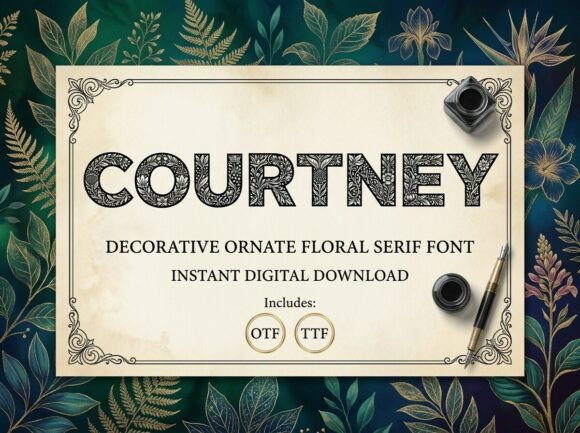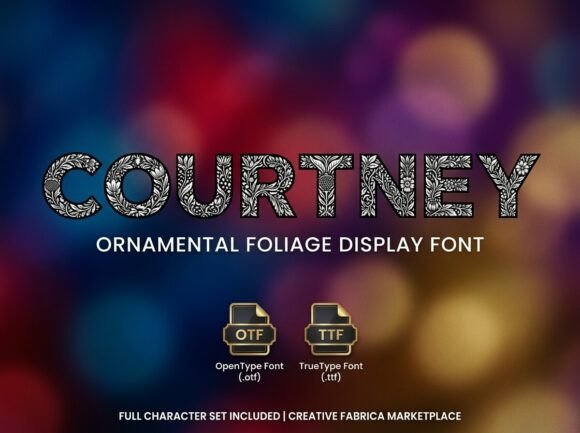
Introducing Courtney: The Premium Floral Engraved Font for Unparalleled Artistry
In the world of typography, few fonts have managed to capture the essence of classic woodcut craftsmanship as effortlessly as Courtney. This premium floral engraved font is a masterpiece of intricate design, boasting a sturdy, bold serif skeleton entirely inhabited by delicate, hand-drawn floral motifs and botanical flourishes. Every letterform in Courtney is a miniature tapestry of nature, radiating a timeless, handcrafted prestige that elevates creative projects to new heights of artistry.
The Art of Floral Engraving: A Timeless Craft
Floral engraving is an ancient craft that has been perfected over centuries. The technique involves carving intricate designs into wood or metal to create beautiful, detailed patterns. Courtney brings this traditional craft into the modern era, offering a font that is both nostalgic and cutting-edge. Each letterform is meticulously designed to resemble a hand-engraved masterpiece, complete with delicate petals, twisting vines, and organic textures.
Unparalleled Design and Versatility
Courtney is more than just a font – it’s a design statement. Its sturdy, bold serif skeleton provides a solid foundation for a wide range of creative projects, from high-end boutique branding to artisanal product packaging. The font’s intricate floral motifs and botanical flourishes add a touch of elegance and sophistication, making it perfect for heritage-inspired logo design, romantic wedding stationery, and other applications where a sense of luxury and refinement is desired.
Applications for Designers and Crafters
Courtney is an extraordinary choice for designers and crafters looking to add a touch of artisanal beauty to their work. Some potential applications for this premium font include:
- High-end boutique branding: Use Courtney to create luxurious logos and branding materials that exude elegance and sophistication.
- Heritage-inspired logo design: Draw inspiration from the past with Courtney’s classic, timeless design.
- Artisanal product packaging: Add a touch of handcrafted prestige to your product packaging with Courtney’s intricate floral motifs.
- Romantic wedding stationery: Make your wedding stationery truly unforgettable with Courtney’s beautiful, delicate design.
What Sets Courtney Apart
Courtney is more than just a font – it’s a work of art. Here are just a few factors that set it apart from other fonts:
- Intricate, hand-drawn design: Every letterform in Courtney is meticulously designed to resemble a hand-engraved masterpiece.
- Timeless, handcrafted prestige: Courtney radiates a sense of luxury and refinement, making it perfect for high-end applications.
- Versatility: Courtney can be used for a wide range of creative projects, from branding and packaging to wedding stationery and more.
Elevate Your Creative Projects with Courtney
Ready to take your creative projects to the next level? With Courtney, you can add a touch of unparalleled artistry to your work. Whether you’re a designer, crafter, or simply someone who appreciates beautiful typography, Courtney is the perfect choice. Its unique blend of classic craftsmanship and modern sophistication makes it an extraordinary addition to any project.
In conclusion, Courtney is a premium floral engraved font that offers a unique blend of classic craftsmanship and modern sophistication. Its intricate, hand-drawn design and timeless, handcrafted prestige make it perfect for high-end applications. Whether you’re looking to create luxurious branding materials, artisanal product packaging, or romantic wedding stationery, Courtney is the perfect choice. Elevate your creative projects to a level of unparalleled artistry with Courtney – the ultimate font for designers and crafters.